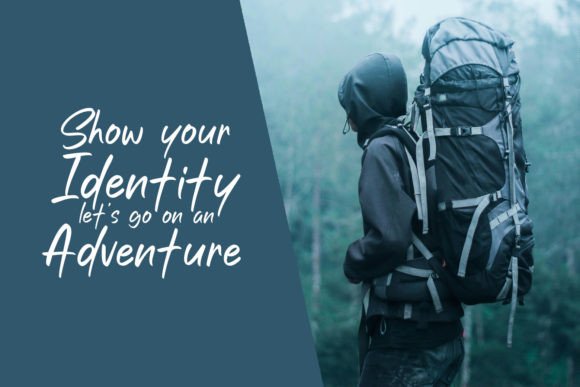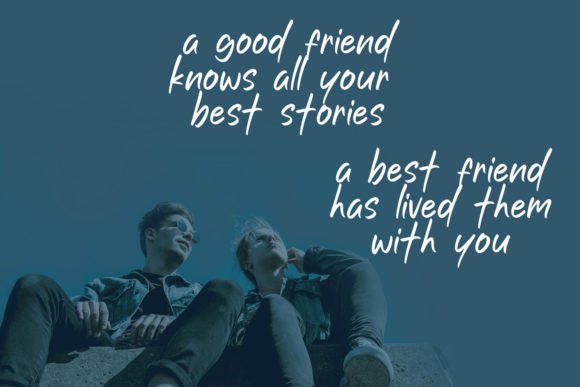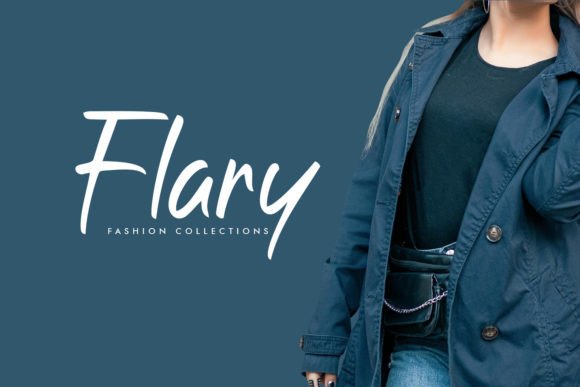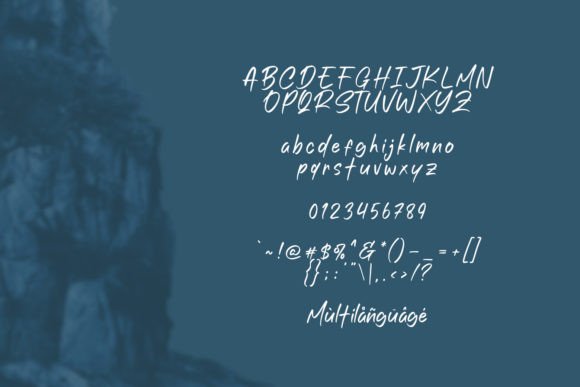
Introduction to Rullent Font
Do you remember that moment when a spark of creativity hit you, and you envisioned a stunning poster or a beautiful logo that would make your project stand out? For designers, this moment is what drives us to push the boundaries of our creativity. And, what if I told you that you can achieve this with the perfect design resource – the Rullent Font?
This clean, stylish, modern, and elegant script handwriting font is a game-changer for any creative project. Whether you’re working on a magazine cover, a book design, or a banner, the Rullent Font is the perfect addition to elevate your work. With its high-quality design and transparent background, it can easily be matched to a wide range of projects, making it an invaluable asset for any designer.
Key Features of Rullent Font
- Rullent Font is a high-quality, free design resource suitable for various creative projects, including digital art, graphic design, and typography.
- This font family includes multiple styles, each with a transparent background, allowing for easy customization and seamless integration into any design.
- The font family consists of 6 styles, including bold, italic, and regular variations, making it an ideal choice for designers who need a versatile and expressive font.
- Rullent Font is designed with high-resolution graphics, ensuring crisp and clear text rendering at resolutions up to 300 DPI.
- This font family is optimized for use in digital design, including web design, mobile app development, and video game creation, where high-quality typography is crucial.
- Rullent Font is a great resource for designers who want to add a unique touch to their creative projects without compromising on quality or style.
Honest Review: Rullent Font
As a designer, I’m always on the lookout for high-quality fonts that can elevate my creative projects. The Rullent Font caught my attention, and I was excited to give it a try. After experimenting with it, here’s my honest review.
- ✨ Beautiful, hand-drawn style that adds a touch of elegance to any design.
- ✨ Includes a transparent background option, making it easy to use in various design scenarios.
- ✨ Comes in a variety of weights and styles, giving designers plenty of options to choose from.
- ⚠️ Limited character set, which may not be suitable for projects requiring extensive typography.
- ⚠️ Not as versatile as some other fonts, which may limit its use in certain design applications.
Overall impression:
I was pleasantly surprised by the Rullent Font’s quality and style. While it may have some limitations, it’s a great addition to any designer’s resource library. If you’re looking for a beautiful, free font to add some flair to your creative projects, the Rullent Font is definitely worth checking out.
Tips for Getting the Most Out of Rullent Font
Rullent Font is ideal for use in various creative projects, including logos, branding materials, and marketing materials. It can also be used in digital designs, such as website headers and footers.